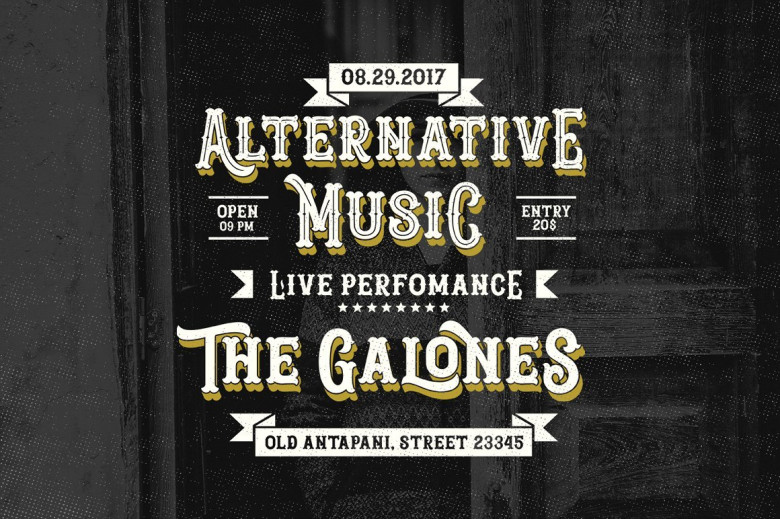
Blastrick Vintage Font
Introducing Blastrick! It is designed by Graptail, this is a premium font, are sold on creativemarket, but it was great, it is free today for download. Blastrick is a vintage layered type system with endless design possibilities using different combinations of fonts and colors. Achieve a realistic 3D effect by adding the shadow font or just use the capital letters of the regular and bold cut for stark artwork.